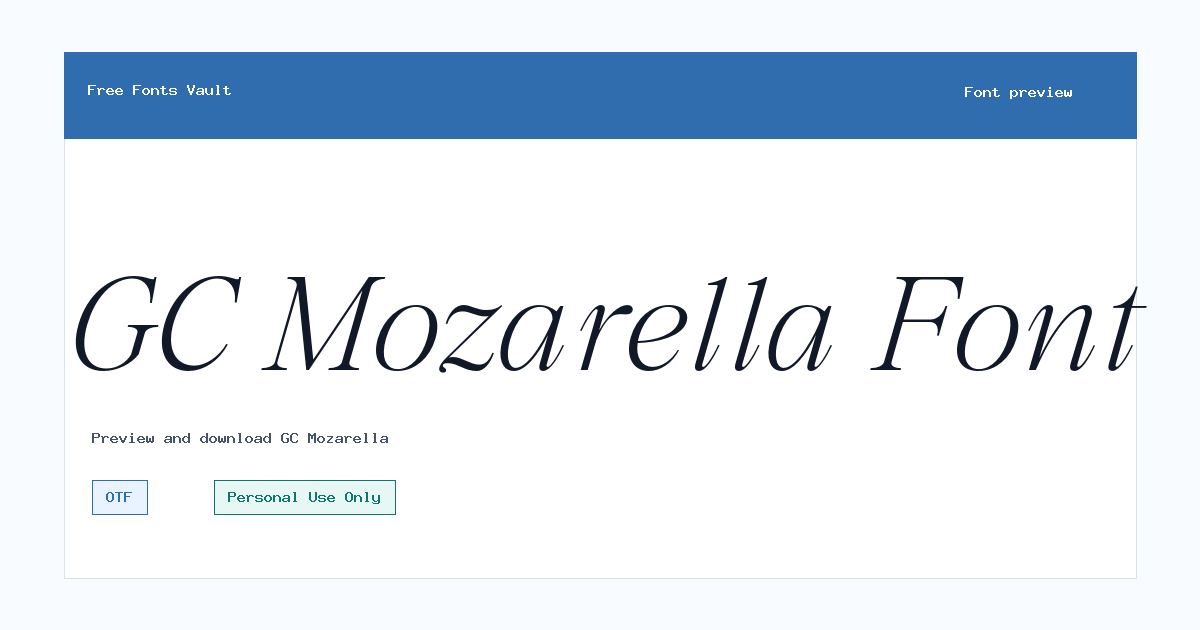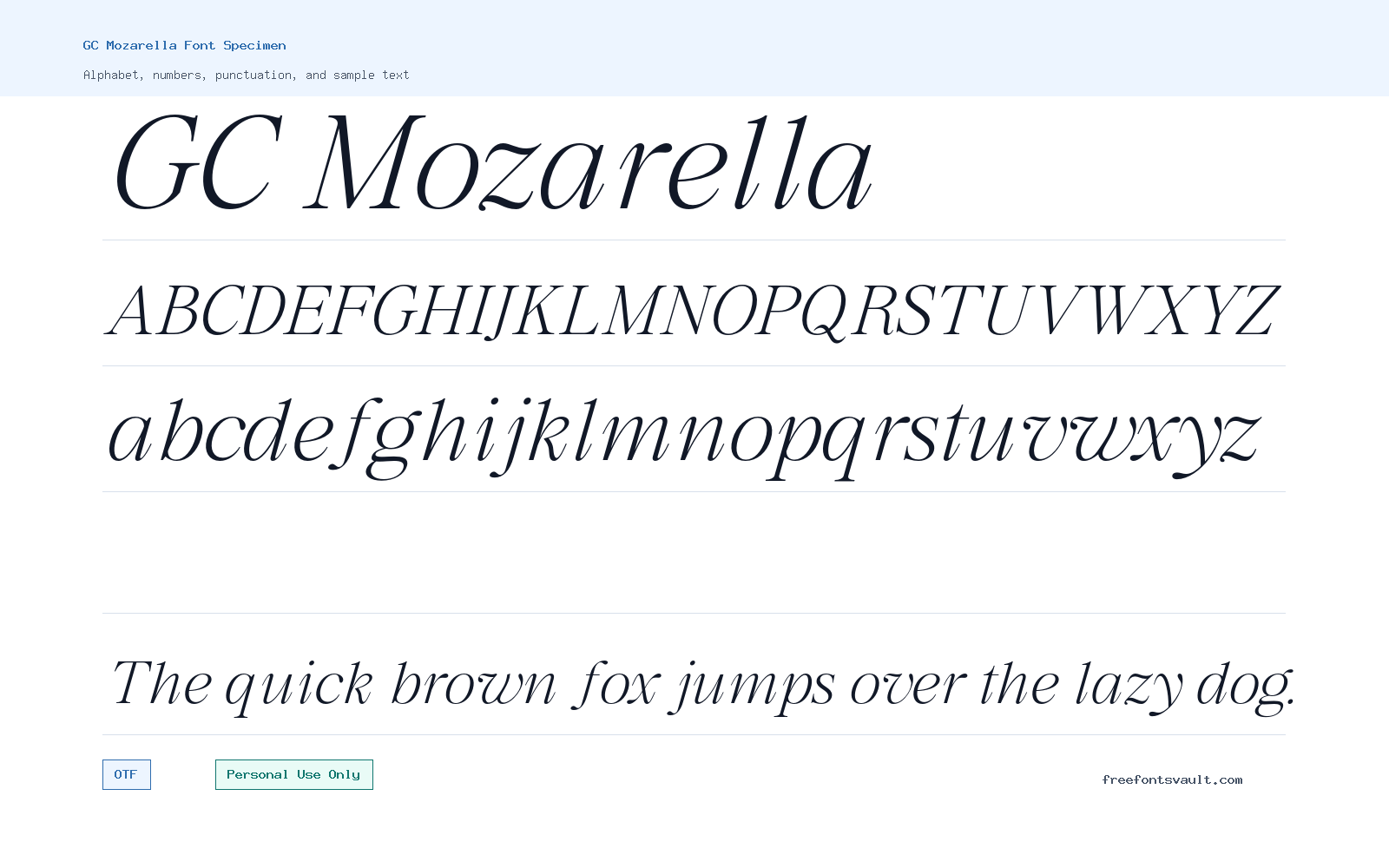
GC Mozarella
- Designer Firo of Glyphonic
GC Mozarella font.
GC Mozarella is a serif font family from Firo of Glyphonic, offered in demo OTF files for personal-use projects. It gives visitors several weights and italic styles to test, making it more flexible than a single-style display font.
About GC Mozarella Font
GC Mozarella is listed as a serif font family, and the file set suggests a broad demo package with Thin, ExtraLight, Light, Regular, Medium, SemiBold, Bold, and matching italic styles. That range makes it useful when you want one family to handle more than a headline. The lighter weights can bring a refined, airy feel to titles or short quotes, while Medium, SemiBold, and Bold are better choices when the text needs stronger presence. The italic files are helpful for emphasis, pull quotes, author names, captions, or small supporting lines where an upright style may feel too plain.
- Includes upright and italic styles, giving room for headlines, emphasis, captions, and short editorial text.
- Large headlines, elegant title treatments, short branding tests, packaging concepts, and editorial-style layouts.
GC Mozarella is credited to Firo of Glyphonic, with Glyphonic listed as the foundry.
Does GC Mozarella include italic styles?
Yes. The demo set includes several italic files, including Italic, Light Italic, Medium Italic, Bold Italic, Thin Italic, and other named italic styles.
What is GC Mozarella best used for?
It is best tested for personal-use headlines, invitations, quote designs, social graphics, editorial titles, and branding mockups where a serif style fits the mood.
Should I use GC Mozarella for long paragraphs?
Test it first. The regular or medium style may work for short text, but the lighter weights are safer for large headings and display settings rather than small body copy.